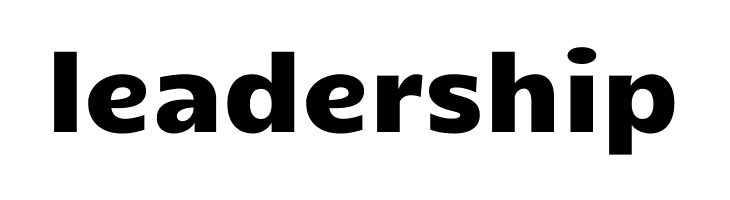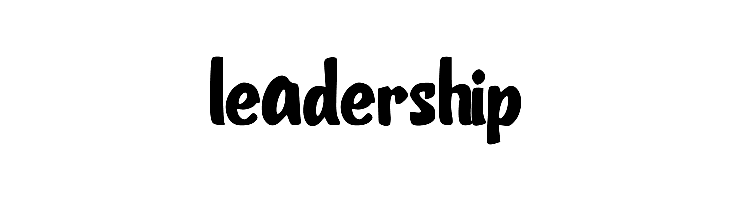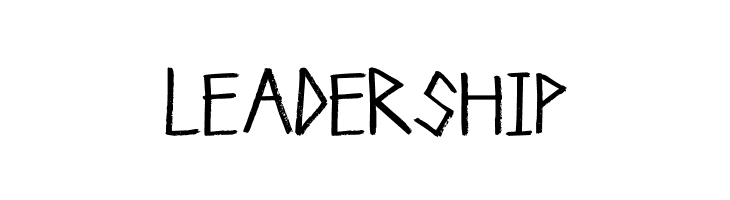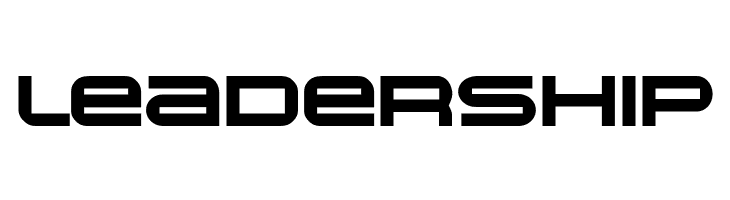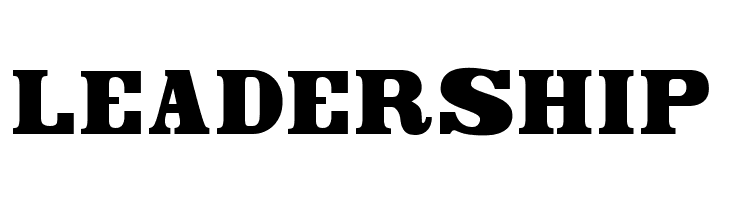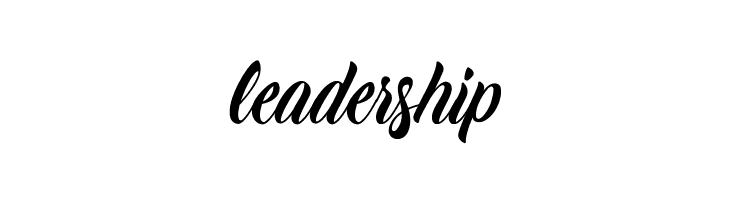
A rugged, distressed font with a fiery, organic appearance.
A rugged, hand-drawn font with a natural, adventurous style.
A bold, dynamic script font with a handwritten feel.
A bold, futuristic font with geometric and sleek design elements.
A bold, modern sans-serif font with strong, uniform strokes and excellent readability.
A modern, geometric sans-serif font with a clean and minimalistic design.
A bold, 3D font with a strong, collegiate style.
Bold, block-style font with a three-dimensional effect and thick outlines.
A bold, geometric font with a modern and robust style.
A bold, geometric font with a collegiate, varsity style.
An elegant, high-contrast cursive script font with flowing, ornate characters.
A playful and flowing script font with elegant curves and a modern artistic style.
A dynamic brush-style font with bold, sweeping strokes and a handcrafted feel.
A bold, playful font with circular holes and a mechanical feel.
A bold, mechanical-inspired font with rounded shapes and circular cutouts.
A bold, geometric font with an industrial, futuristic design.
A bold, modular font with a mechanical and industrial aesthetic.
A bold, mechanical font with modular segments and rivet-like details.
A bold, mechanical font with a unique industrial design.
A bold, mechanical-themed decorative font with circular gear-like elements.
A bold, industrial font with a mechanical, gear-like design.
A modern, light sans-serif font with a clean and minimalist design.
A sleek, modern, light italic font with elegant slanted characters.
A whimsical font with each letter depicted as a unique monster character.
A bold, serif font with strong strokes and a classic yet modern appeal.
A bold, modern font with clean lines and strong presence.
A bold, modern font with strong lines and clear characters.
A flowing, cursive script font with elegant, interconnected characters.
An elegant script font with flowing, cursive characters and decorative swashes.
A playful, bold, and rounded font with smooth curves and a whimsical touch.
A slanted, cursive font with medium contrast and elegant, flowing strokes.
A playful and casual handwritten font with smooth curves and bold strokes.
A playful, bold handwritten font with rounded strokes and a casual style.
An elegant script font with flowing, interconnected characters and a classic calligraphic style.